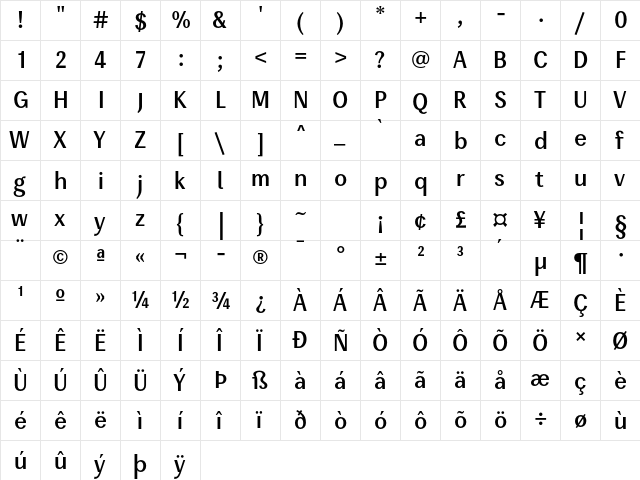
Enceladus DemiBold
| Foundry | Igor Kosinsky |
| Designer | Igor Kosinsky |
Design Context for Enceladus Typeface
Enceladus is a composed and adaptable typeface that performs quietly and consistently across a wide range of design contexts. The heavy weight commands attention and anchors typographic hierarchies.